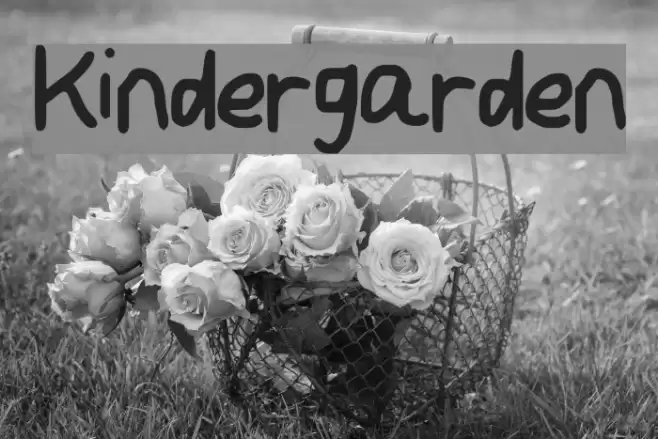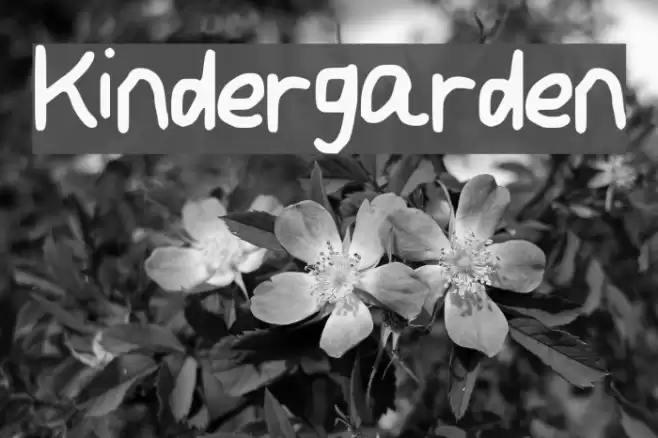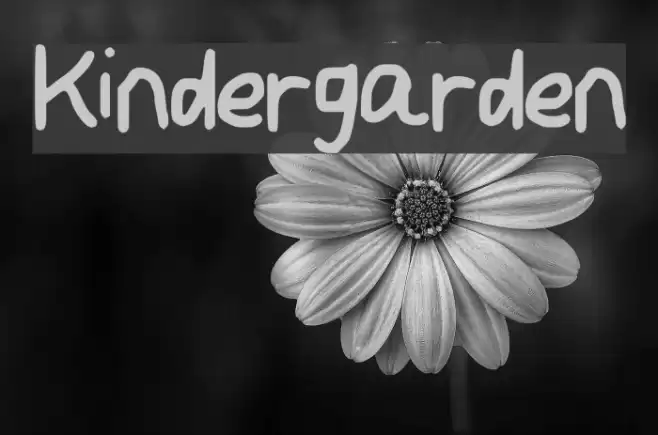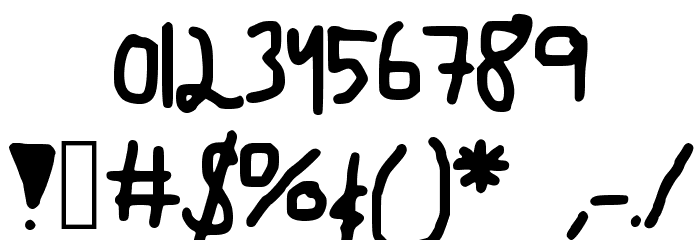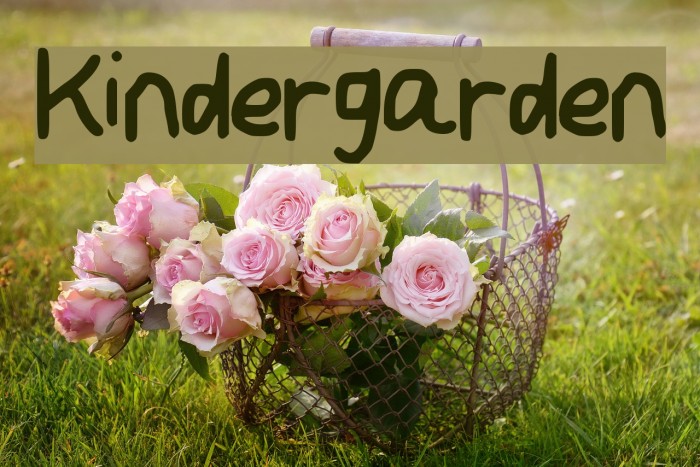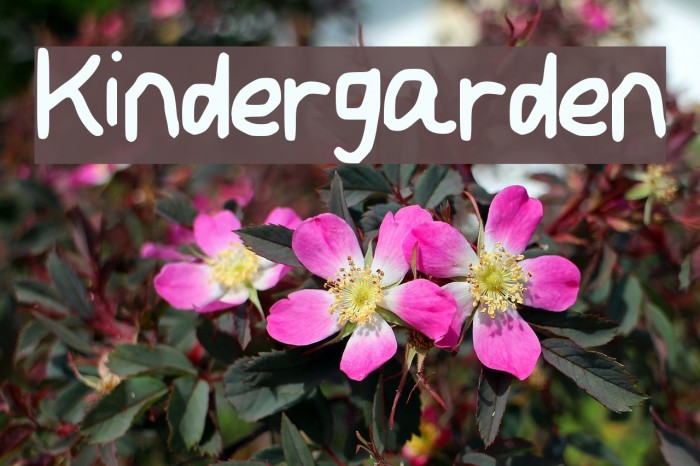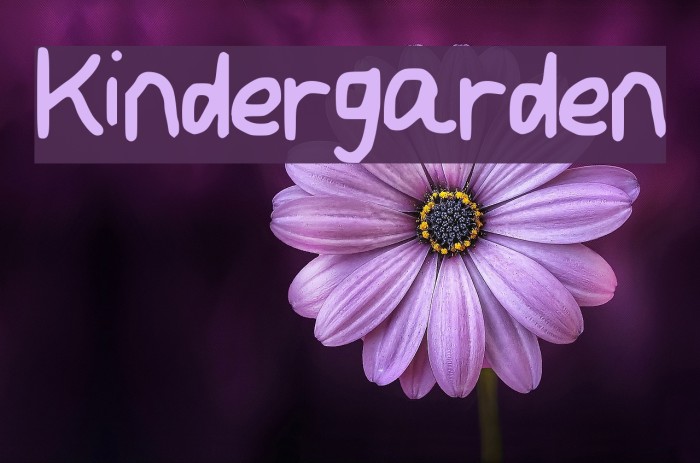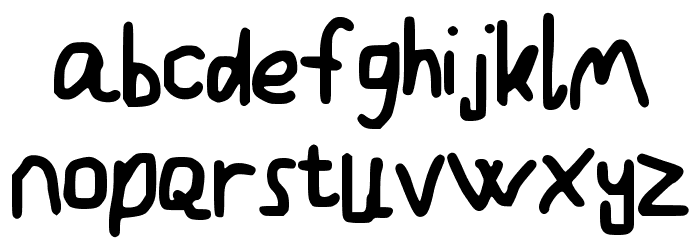
Kindergarden Font
Kindergarden Description
This playful and whimsical font captures the essence of a child's handwriting, featuring irregular strokes and a casual, friendly appearance. The letters are slightly uneven, adding to the charm and authenticity of a hand-drawn style. The font maintains a consistent thickness throughout, giving it a cohesive look despite its informal nature. It includes both uppercase and lowercase letters, numbers, and a variety of special characters, making it versatile for different uses. The overall design is approachable and fun, perfect for projects that aim to evoke a sense of innocence and creativity.
A playful, hand-drawn font reminiscent of children's handwriting from Handwritten fonts.
- Proposed Projects: Ideal for children's books, educational materials, playful branding, and creative projects.
- Overall Style: Playful
- Use Case: Headlines, Logos, Creative projects